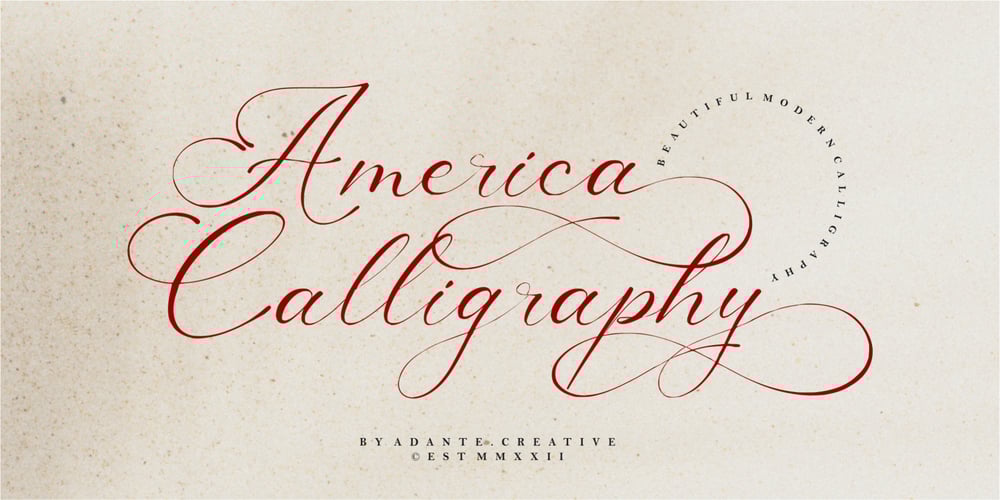
America Calligraphy Font Family was designed by Yanto Suheri and published by Adante Creative. America Calligraphy contains 1 styles and family package options. Introducing by Adante.CreativeProudly Present, America Calligraphy A Beautiful Modern Calligraphy FontAmerica Calligraphy is perfect for product packaging, branding project, megazine, social media, wedding, or just used to express words above the background.America Calligraphy also multilingual support.Enjoy the font, feel free to comment or feedback, send me PM or email.